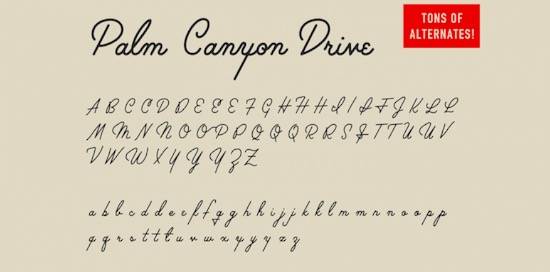
Palm Canyon Drive font – a famous monoline script typeface which was designed by Amy Hood and was released by RetroSupply Co..
This monoline font has 6 styles and along with the retro and dingbat style. It’s inspired by Tikki bars & Hollywood, travel postcards, and retro matchbook covers.
Palm Canyon Drive Script font